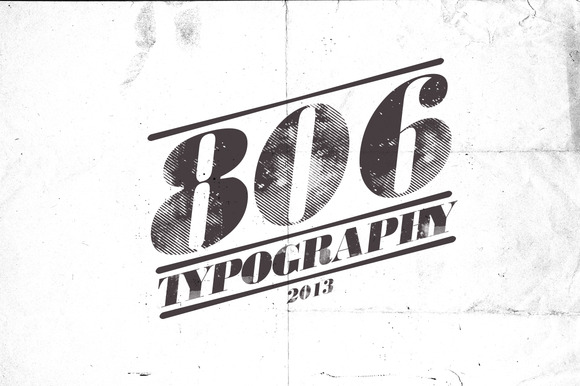
Introducing 806 Typography Font: Elevate Your Design Game
Are you tired of using the same old fonts for your designs? Look no further! The 806 Typography Font is here to revolutionize your creative process. This versatile font allows you to create stunning designs in a flash, making your text stand out from the crowd. Whether you’re a designer, crafter, or DIY enthusiast, this font is perfect for various purposes, including headings, logos, invitations, t-shirt designs, greeting cards, posters, labels, book covers, brochures, and much more.
What Makes 806 Typography Font Special?
The 806 Typography Font is designed to help you create visually appealing designs quickly and efficiently. Its unique features include:
- High Versatility: Use it for a wide range of applications, from digital designs to print materials.
- Easy to Read: The font’s clarity ensures that your message is conveyed effectively, even at smaller sizes.
- Customizable: Experiment with different colors, sizes, and styles to match your brand’s identity.
- Time-Saving: Create professional-looking designs in a fraction of the time it would take with other fonts.
With the 806 Typography Font, your creative possibilities are endless. Here are some ideas to get you started:
Logos and Branding
Create a lasting impression with a unique logo that reflects your brand’s personality.
T-Shirt Designs
Make your apparel stand out with eye-catching designs that showcase your style.
Invitations and Greeting Cards
Add a personal touch to your special occasions with beautifully designed invitations and cards.
Posters and Flyers
Grab attention with bold and colorful posters and flyers that get your message across.
Book Covers and Brochures
Make a great first impression with professional-looking book covers and brochures.
Tips for Using 806 Typography Font
To get the most out of this amazing font, here are some tips to keep in mind:
- Experiment with Colors: Try out different color combinations to find the perfect match for your design.
- Play with Sizes: Use different font sizes to create visual hierarchy and emphasize important information.
- Add Effects: Experiment with subtle effects like shadows, gradients, or textures to add depth to your design.
- Keep it Simple: Don’t overcomplicate your design – sometimes, simplicity is the most effective approach.
The 806 Typography Font is a game-changer for designers and crafters looking to elevate their design game. With its versatility, readability, and customizability, this font is perfect for a wide range of applications. Whether you’re a seasoned designer or just starting out, this font is sure to inspire your creativity and help you create stunning designs in no time.